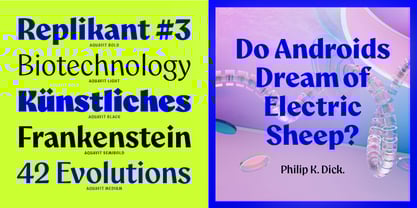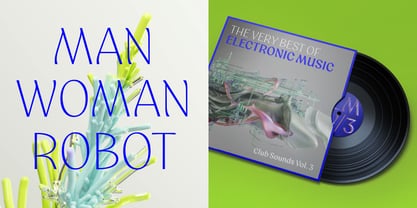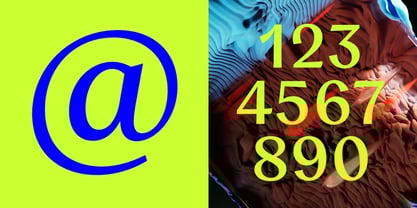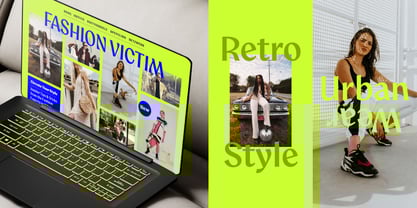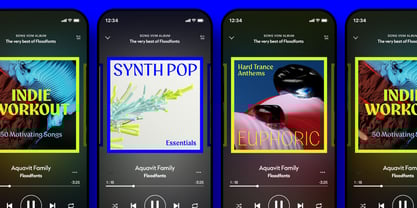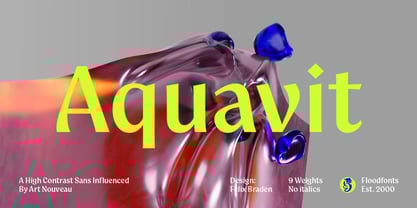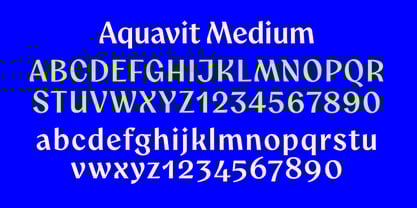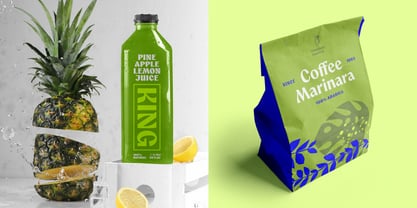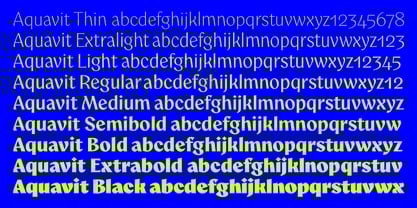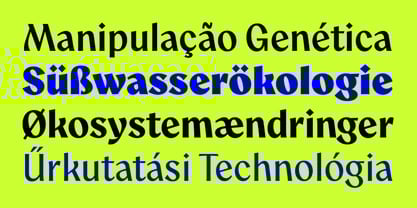
Aquavit
The Aquavit Font Family was designed by Felix Braden and published by Floodfonts. Aquavit contains 9 styles and family package options. More about this family
Aquavit – A unique, non-conformist display family for brands that like to break the mold.
Aquavit is a high-contrast Sans inspired by the organic forms, flowing lines, and expressive motifs of the Art Nouveau movement. Combining the crisp precision of a high-contrast sans with the warmth of vintage design, Aquavit walks the line between cool sophistication and handcrafted natural charm.
The slightly top-heavy design, with subtle calligraphic influences, breathes an air of extravagance and grace, making Aquavit a go-to choice for brands in the realm of exclusive lifestyle products – whether you're in beauty, fashion, jewelry, music, food & beverage, interior design, or anything in between. Aquavit brings a unique sense of character and authenticity to any creative project.